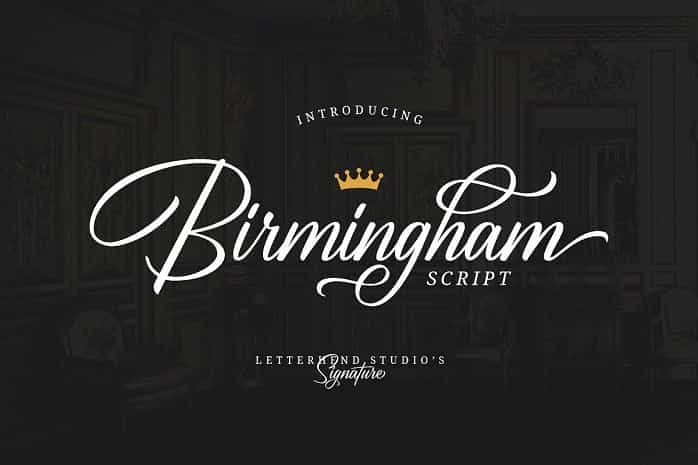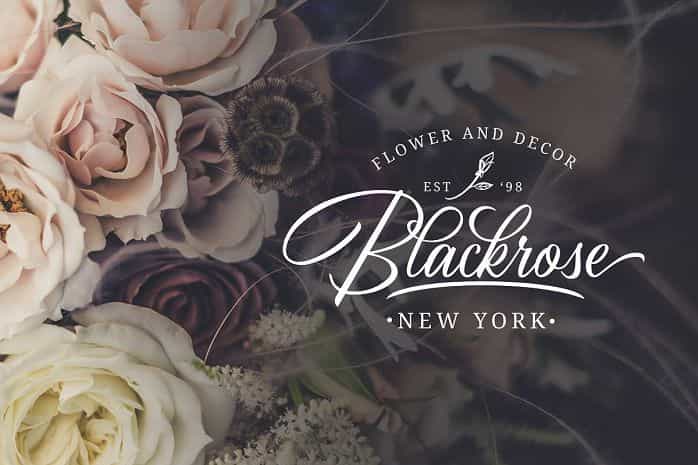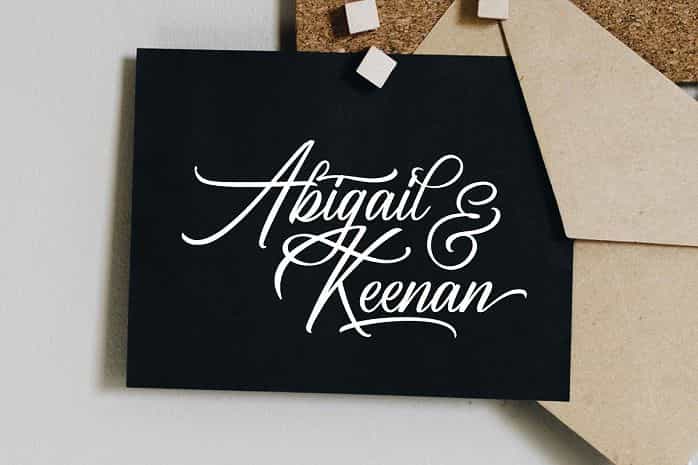
Introducing Birmingham Font. It is created and given by Letterhend . The Birmingham Script Font is a graceful handwriting that includes lowercase, uppercase, symbol and can also be used in multiple languages. There are many substitutes in this font. This font is ideal for creating a logo to brand your business, beautiful fashion designs, wedding invitations or even an authentic signature.